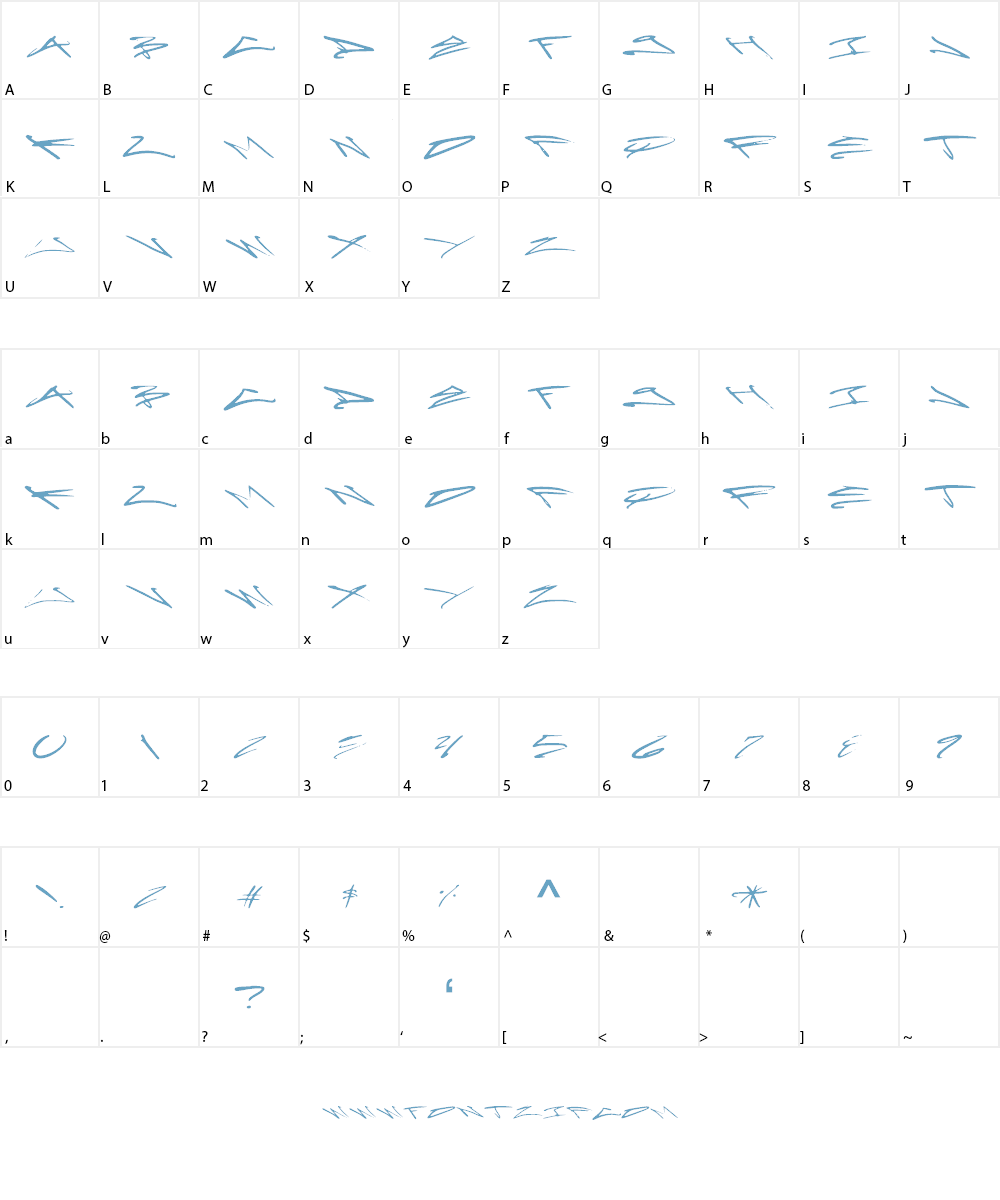
I have been creating graffiti for over 20 years, specializing in hand styles. Here is my first font. Free for personal use. For commercial use, email me or visit my website at artoxication.com. Please enjoy, expect many more.